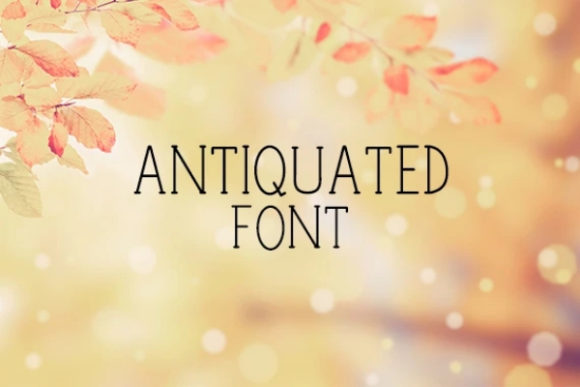
The Power of Antiquated: Elevating Your Designs with a Luxurious Serif Font
I’ll never forget the design project that made me fall in love with the Antiquated font. I was working on a branding campaign for a high-end boutique, and I needed a font that exuded luxury and sophistication. After hours of scouring font libraries and trying out different combinations, I stumbled upon Antiquated – a stunning serif font that instantly elevated my design. In this article, I’ll share my experience with Antiquated, its features, and how to make the most of it in your creative projects.
An Honest Review of Antiquated
What I Love About Antiquated ✨
- 💯 Unique Style: Antiquated brings a fresh take on classic typography, making it perfect for designs that require a touch of elegance.
- ✅ Highly Versatile: Whether you’re creating social media graphics, calligraphy scripts, or branding materials, Antiquated adapts seamlessly.
- 🔍 Attention to Detail: The font’s intricate details and subtle nuances make it a joy to work with.
While Antiquated is an exceptional font, there are a few things to keep in mind:
- 🤔 Kerning Issues: As with any serif font, you may encounter kerning issues, especially when using it at smaller sizes. Be sure to adjust the kerning manually for optimal results.
- ⚠️ Limited Use in Body Text: Due to its ornate nature, Antiquated is best suited for headlines, titles, or short paragraphs. For longer body text, consider pairing it with a more readable font.
- Experiment with OpenType features like ligatures, stylistic alternates, and swashes to add a personal touch to your design.
The Design Story Behind Antiquated
While the true story behind Antiquated remains a mystery, it’s easy to imagine a designer inspired by the grandeur of classic typography. Perhaps they spent hours pouring over vintage books and typography specimens, seeking to create a font that would bring a touch of elegance to modern designs.
Q: What makes Antiquated a luxurious font?
A: Antiquated’s luxurious feel comes from its intricate details, refined lines, and classic typography inspiration.
Q: Can I use Antiquated for calligraphy and hand-lettering projects?
A: Absolutely! Antiquated’s elegant lines and classic inspiration make it an excellent choice for calligraphy and hand-lettering projects.